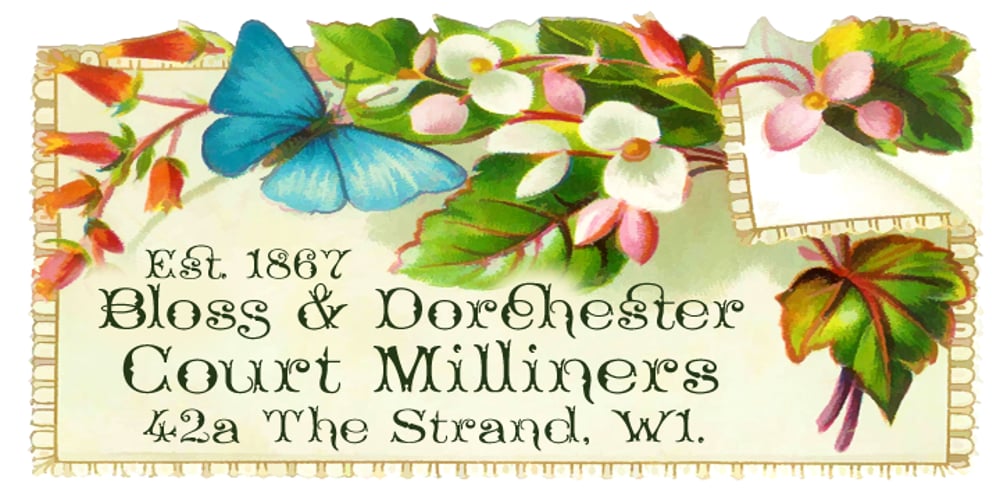
Eccles
Eccles font
Eccles Font Family was designed by Paul James Lloyd and published by Greater Albion Typefounders. Eccles contains 1 styles and family package options. Eccles is another of our ‘Early Victorian’ typefaces, a series we started with the Wolverhampton family a little while ago. It might be described as ‘extreme-Tuscan’ in style but has a delicacy that many other Tuscan faces seem to lack. It’s ideal for giving design projects a clear period feel, particularly in design and advertising work. We also see it having considerable application in preparing invitations to a certain type of happy event. At the other extreme, some of our younger associates have described it as ‘your latest Steampunk font’. So perhaps we’ll just have to settle on it having a split personality…